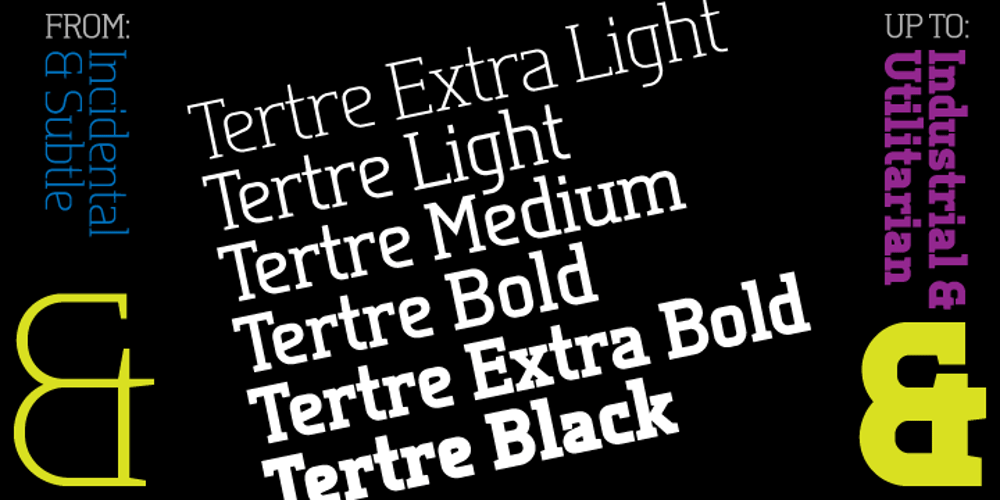
Tertre Font Family was designed by Jan Schmoeger and published by Paragraph. Tertre contains 12 styles and family package options. Tertre is a display/short text typeface with a wide range of applications from signage or posters to menus and pricelists; branding, packaging or publishing. It is named after Place du Tertre, a square located at the top of Montmartre—a hill overlooking Paris, made famous by the artists of the 19th and 20th Century. Like in Galette, the letters have no overhangs and the stroke thickness of capitals and lower case letters is identical, making hinting or anti-aliasing more uniform at any point size and zoom combination.